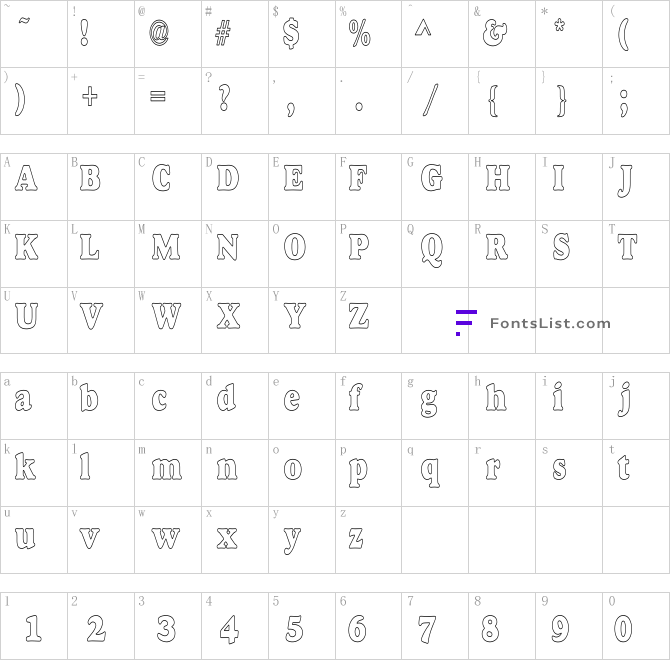
- Font Name:Alfredo Heavy Hollow Condensed
Alfredo-Heavy-Hollow-Condensed.ttf is a very beautiful artistic font, Alfredo-Heavy-Hollow-Condensed.ttf is widely used in the design and printing of various books and pictures,Alfredo-Heavy-Hollow-Condensed.ttf has a strong visual impact,Alfredo-Heavy-Hollow-Condensed.ttf is a commonly used font in newspapers, magazines and books, and is used in posters, e-commerce Poster design, store design, logo design, font design and other fields.Alfredo-Heavy-Hollow-Condensed.